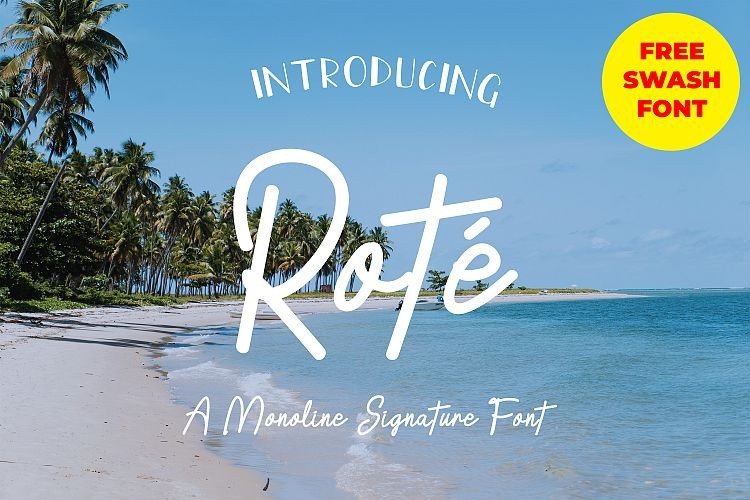
Rote Handwritten Font
Rote Handwritten Font is a Monoline Signature Font. It is a unique and elegant font. That will be matched for your design for example wedding invitation, videography, photography, and many more.